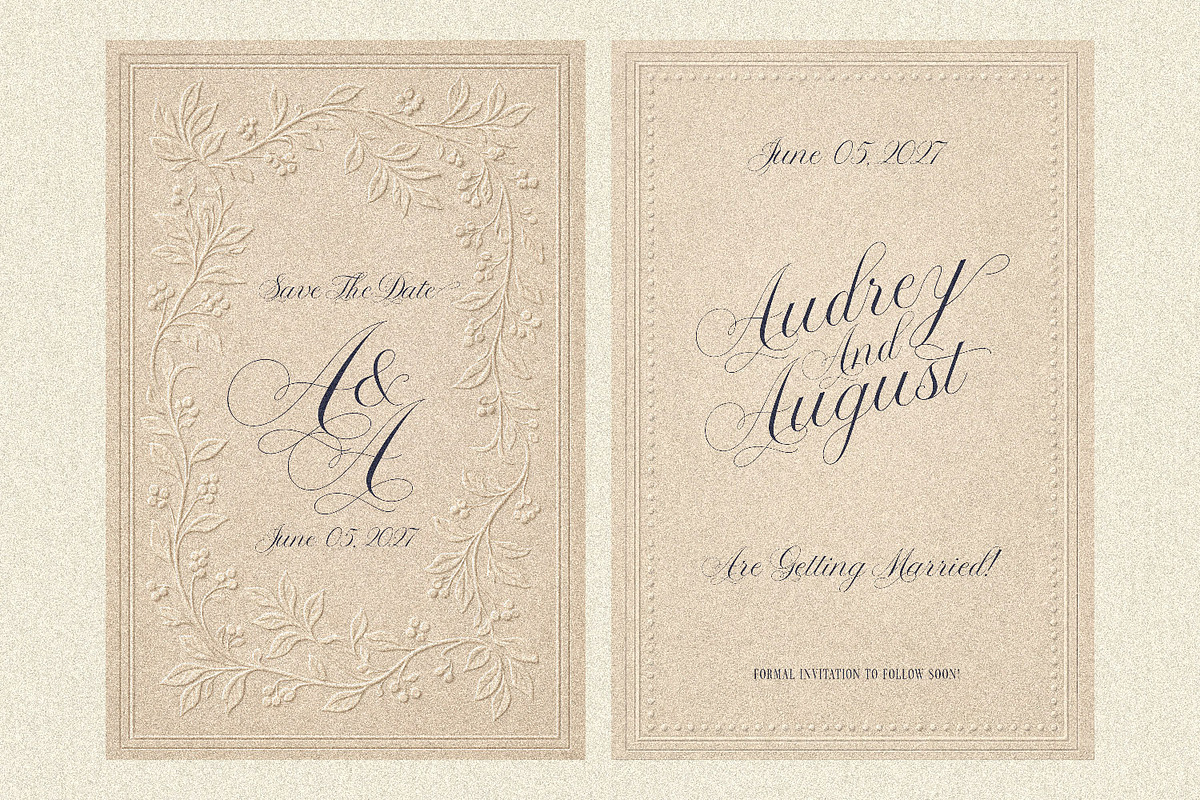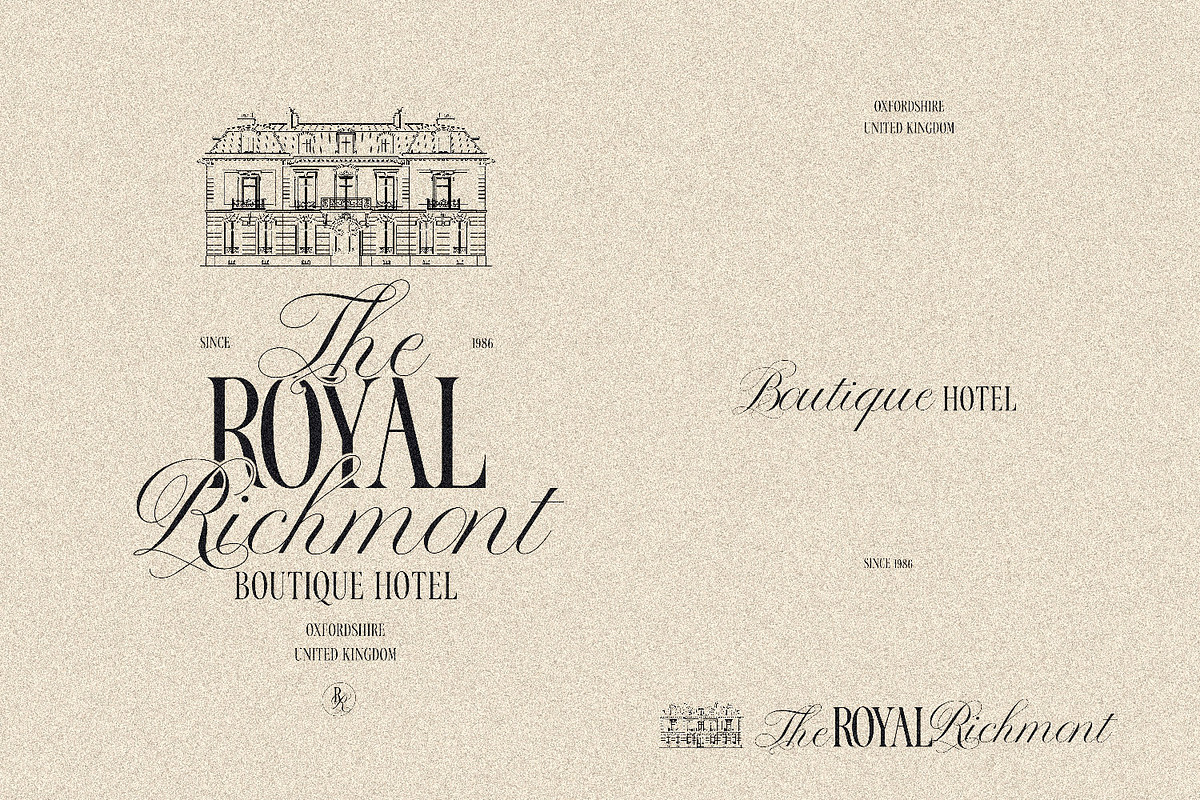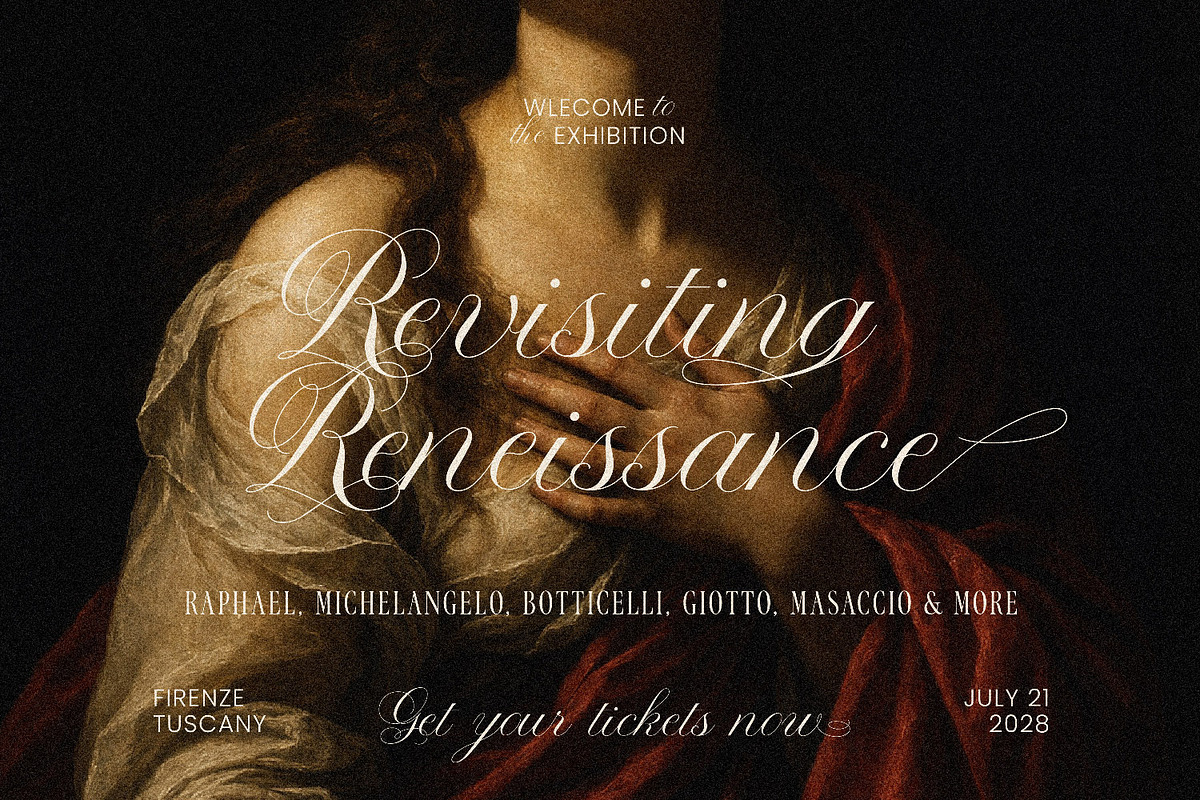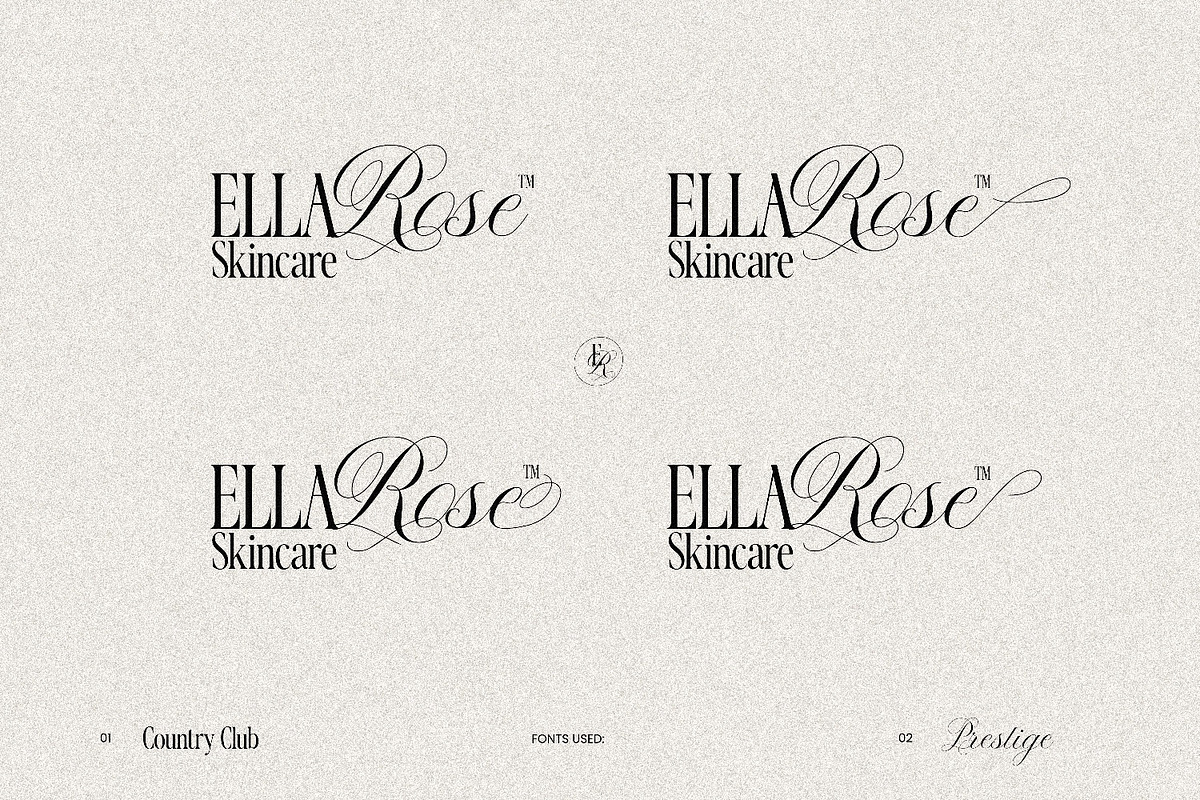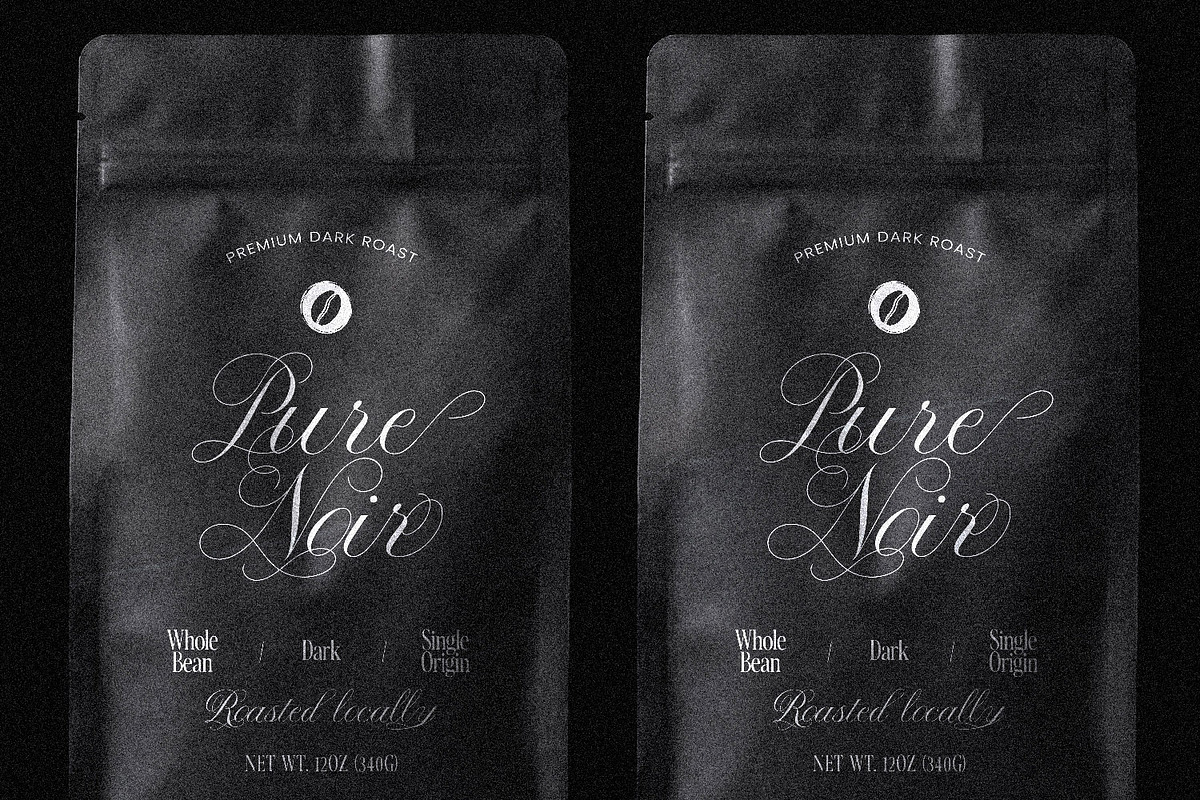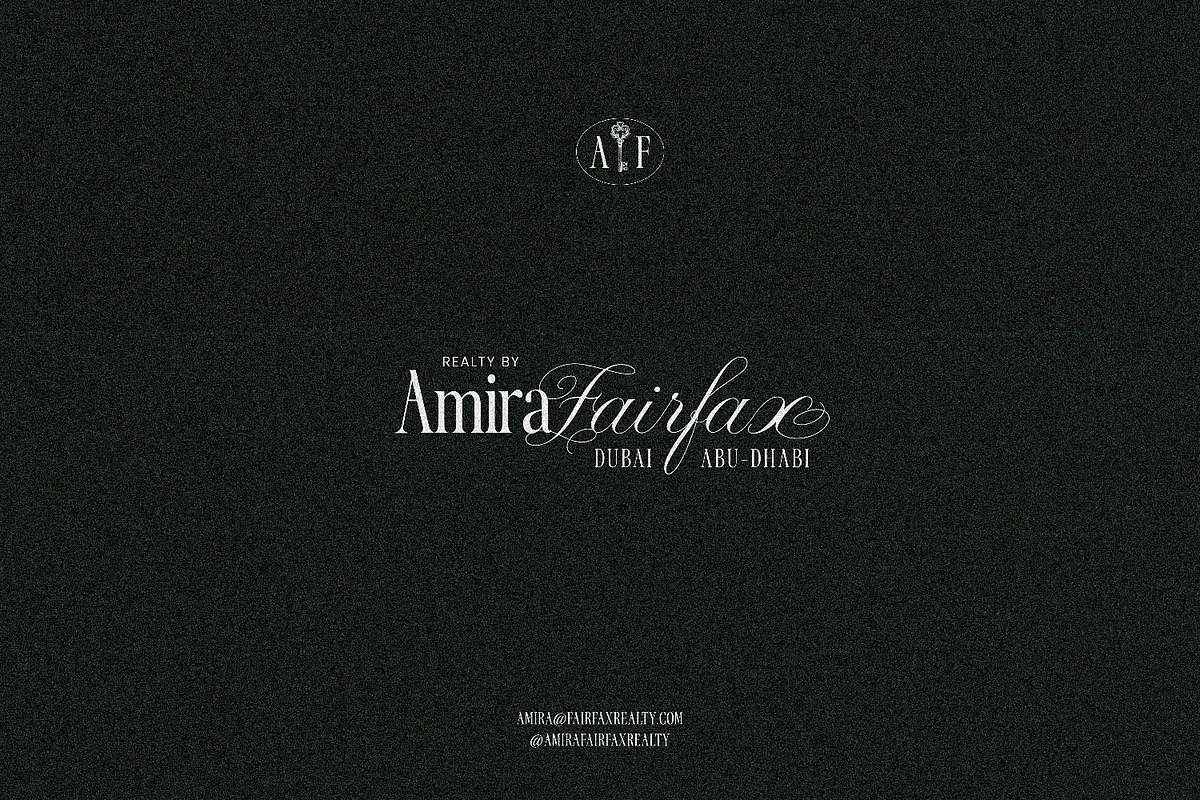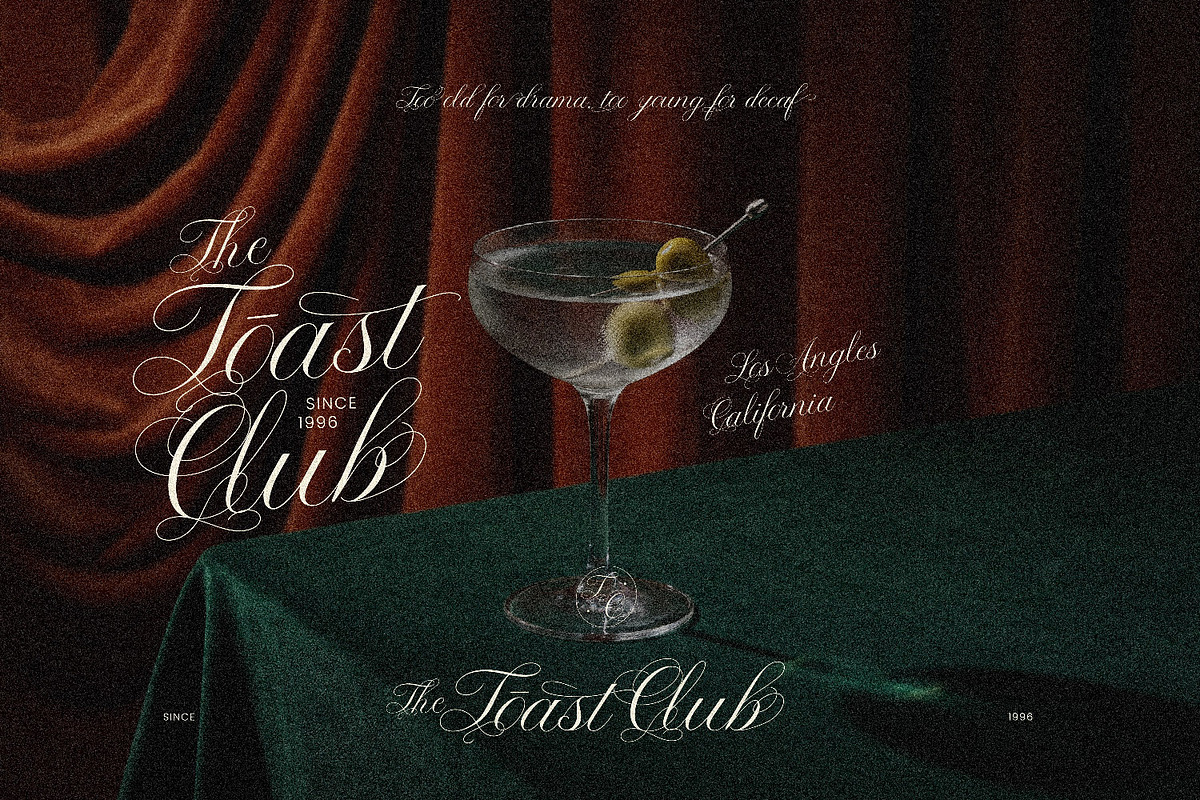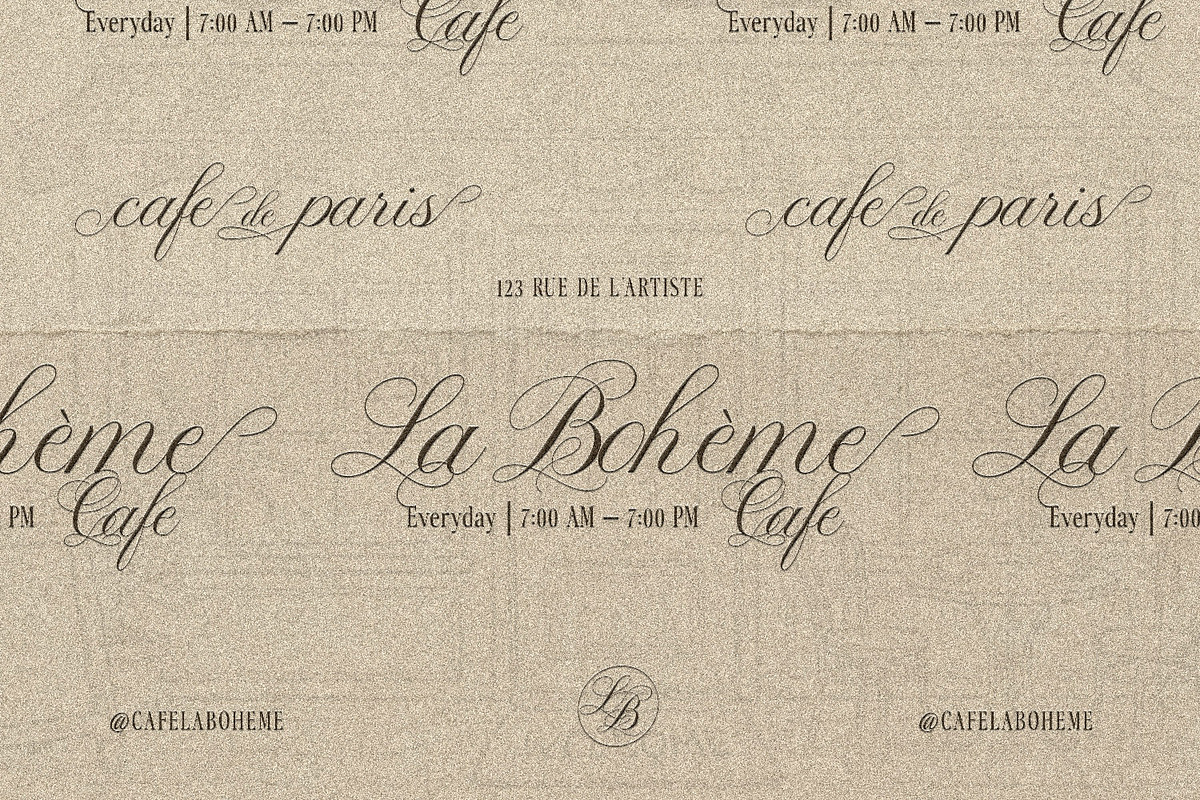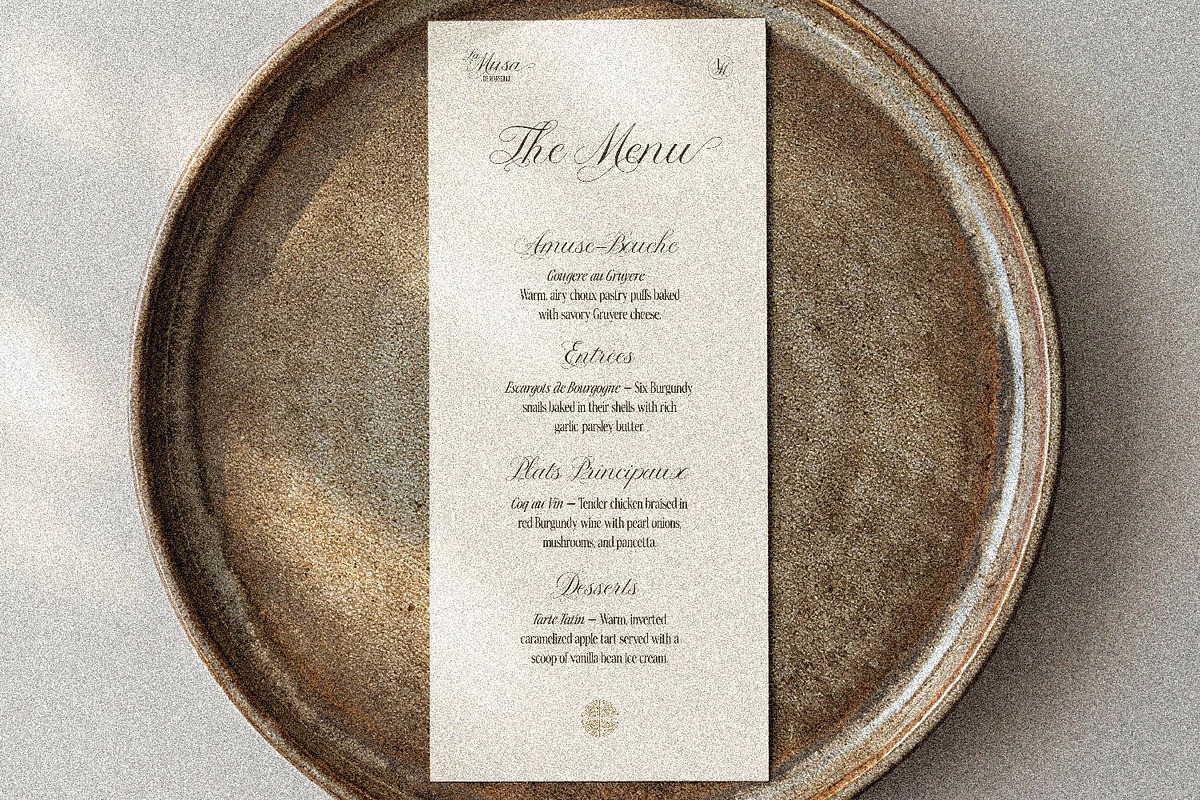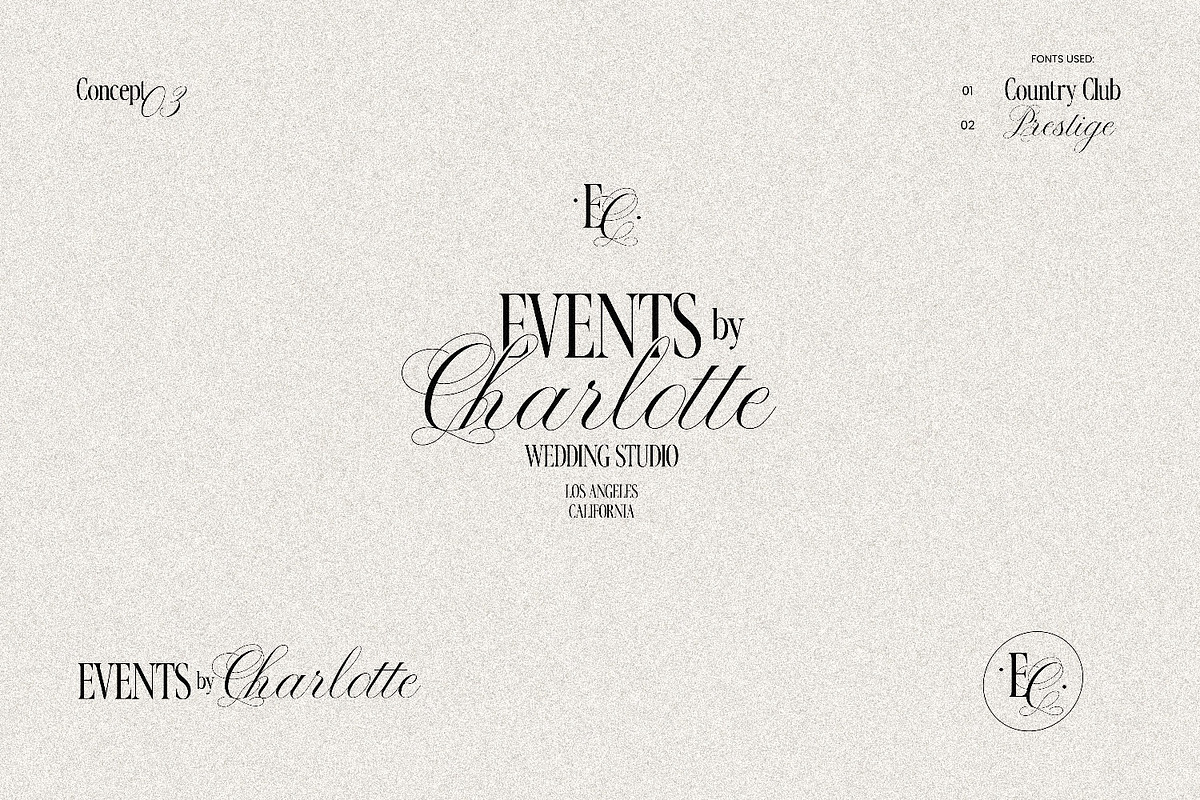
The Prestige — Luxury Script Font
Prestige is an elegant, flowing calligraphy script designed to bring timeless sophistication to your creative projects. With dramatic swashes, delicate flourishes, and graceful letterforms, this typeface captures the romance of classic penmanship while feeling fresh and modern.
It’s an incredibly elegant, flowing script font that feels fancy without trying too hard. It comes packed with over 130 alternate glyphs! That means you can play around, mix and match different swashes, and add all those gorgeous curly details until your design looks exactly how you pictured it.
What can you make with it? Here are some of our favorite ways to use it:
DIY Weddings: It is an absolute dream for Pinterest-worthy wedding invitations, welcome signs, RSVP cards, and custom menus.
Small Biz Branding: Give your boutique, photography business, or bakery a gorgeous logo upgrade that screams "treat yourself."
Cute Merch: It looks amazing printed on tote bags, coffee mugs, and custom apparel.
Social Media: Make your Instagram quote graphics and Pinterest pins look incredibly chic and put-together in seconds.
Custom Gifts & Crafts: Perfect for personalizing everything from custom wine labels and greeting cards to Cricut crafts and home decor.
130+ Alt. glyphs